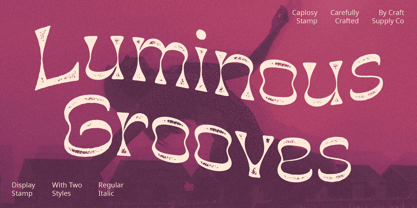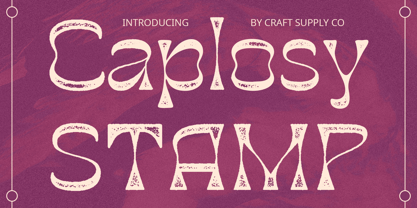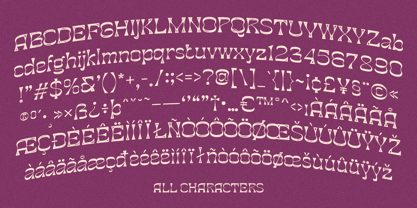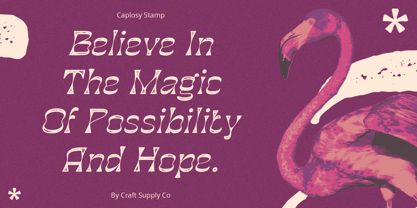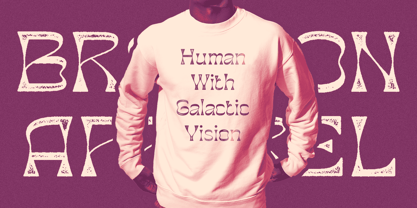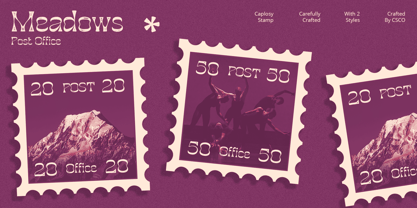
Caplosy Stamp
Caplosy Stamp: Making Display Design Fun
Distinctive Funky Design
Caplosy Stamp features a funky reverse contrast style that sets it apart from conventional display fonts. Its unique character shapes and bold strokes make it a standout choice for eye-catching designs.
Dynamic Stamp Effect
With its stamp effect, This font adds a touch of authenticity and vintage charm to any project. Each character feels like an impression stamped onto the canvas, adding depth and character.
Perfect for Display Needs
Tailored specifically for display purposes, This font excels in grabbing attention. Whether it’s used for posters, headlines, or branding materials, its bold and playful style ensures maximum impact.
Versatile Application
Beyond its funky appearance, This font offers versatility in application. It’s equally effective for digital designs and print media, adding a unique flair to any project.
Fun and Authentic
This font is not your ordinary display font. With its funky reverse contrast style and dynamic stamp effect, it injects fun and authenticity into any design. Whether you’re creating posters, branding materials, or digital artwork, This font is sure to make your project stand out